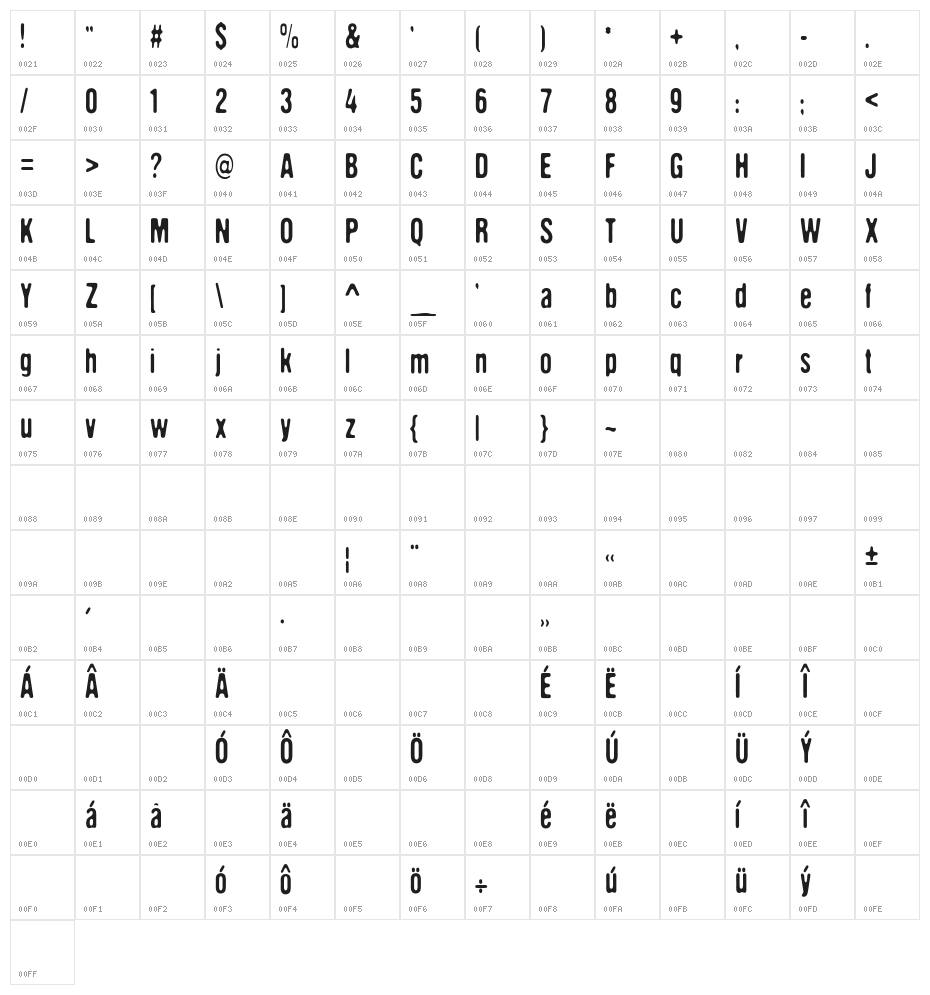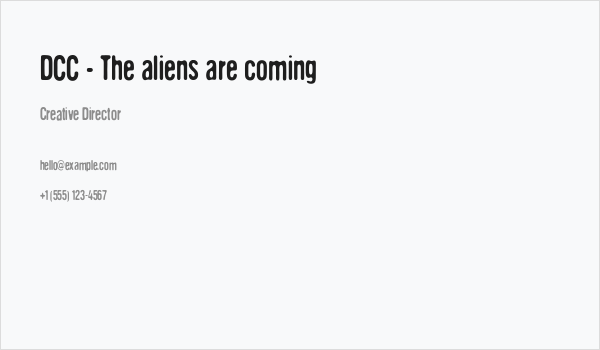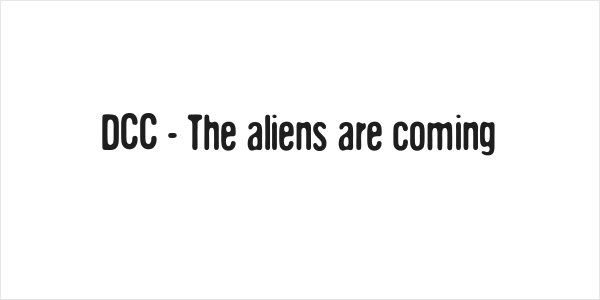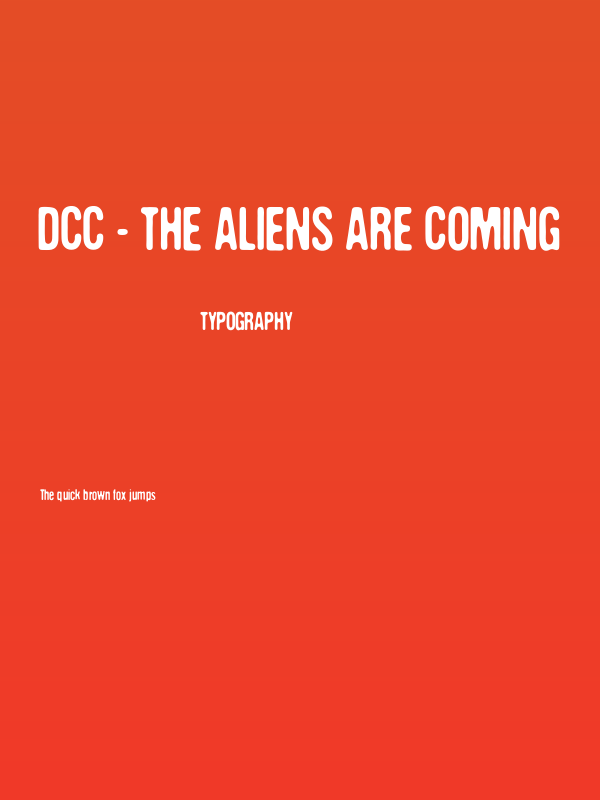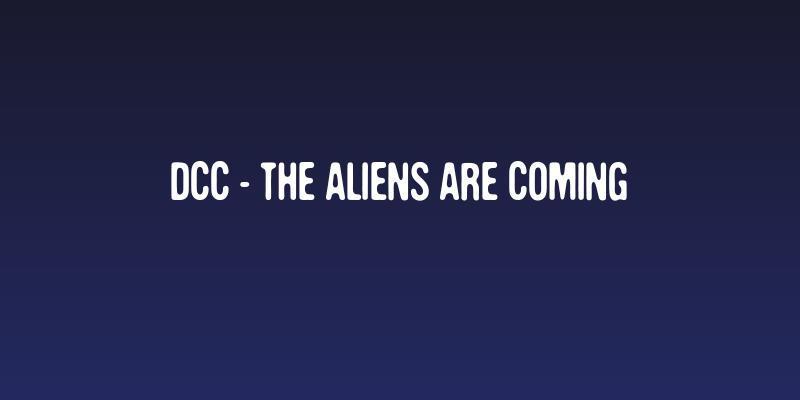
DCC - The aliens are coming Font
DCC - The aliens are coming Description
This font features a playful and bold design with rounded edges, giving it a friendly and approachable appearance. The characters are uniformly thick, providing a consistent and solid look across both uppercase and lowercase letters. The numbers and special characters maintain the same style, ensuring a cohesive visual experience. The overall design is reminiscent of retro or vintage styles, yet it maintains a modern twist with its clean lines and smooth curves. This font is highly legible, making it suitable for a variety of applications where readability is key. Its unique style can add a touch of whimsy and fun to any project.
| Proposed Projects | Ideal for children's books, playful branding, posters, and creative digital content. |